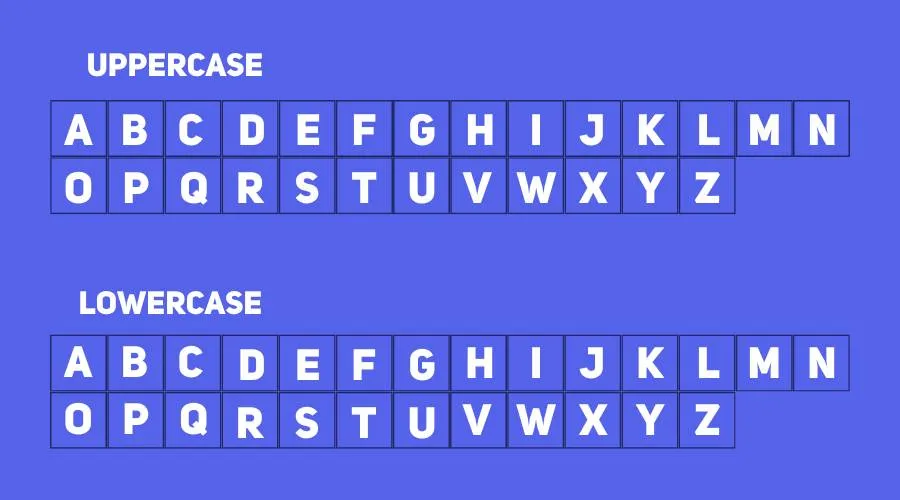
About Discord Font
In this article, we will present you with a very elegant and eye-catching texture known as the name of Discord Font. This font was created by Svet simov and is under the category of the geometric sans serif texture family with a unique and modern texture look. In 2009, this modern texture was published through Fontfabric with both file formats OTF and TTF.
This font is very famous all around the world, after it was released, it gained popularity in a very short time. It contains 14 unique type of styles and more than 100 characters such as small letters, numerals, digits, symbols, and punctuations.